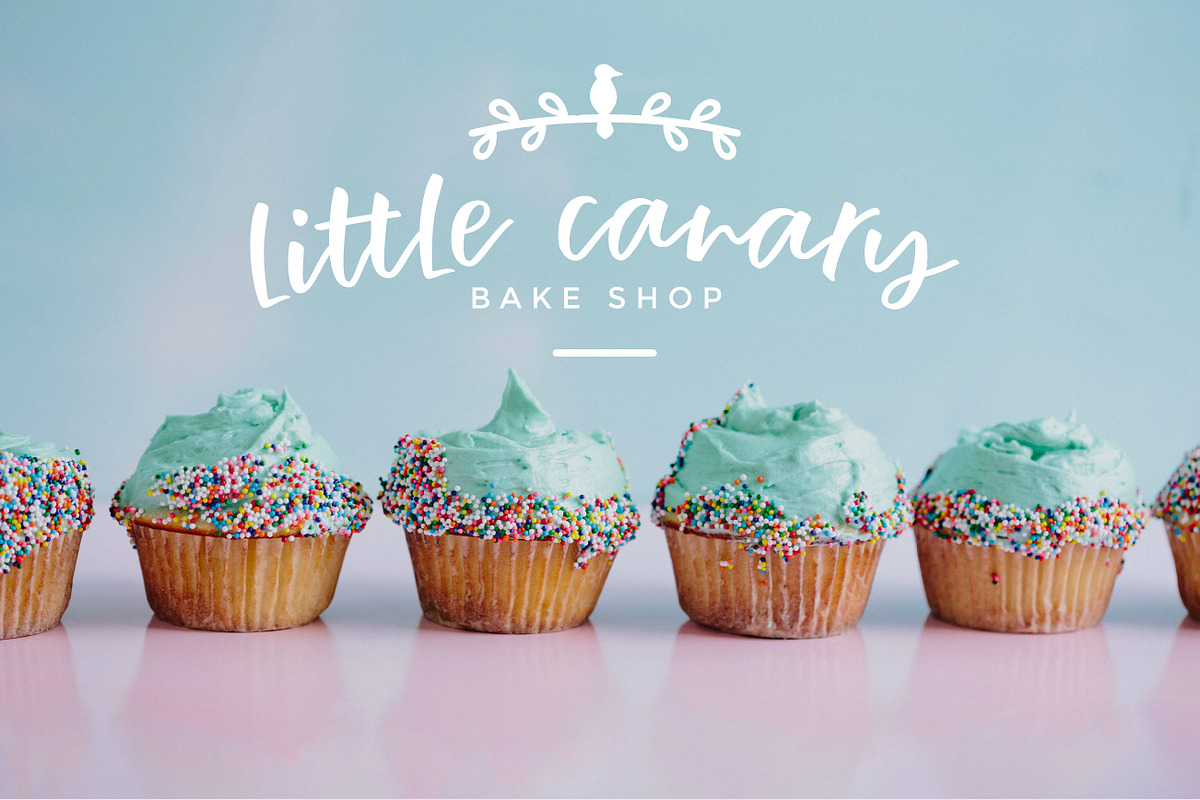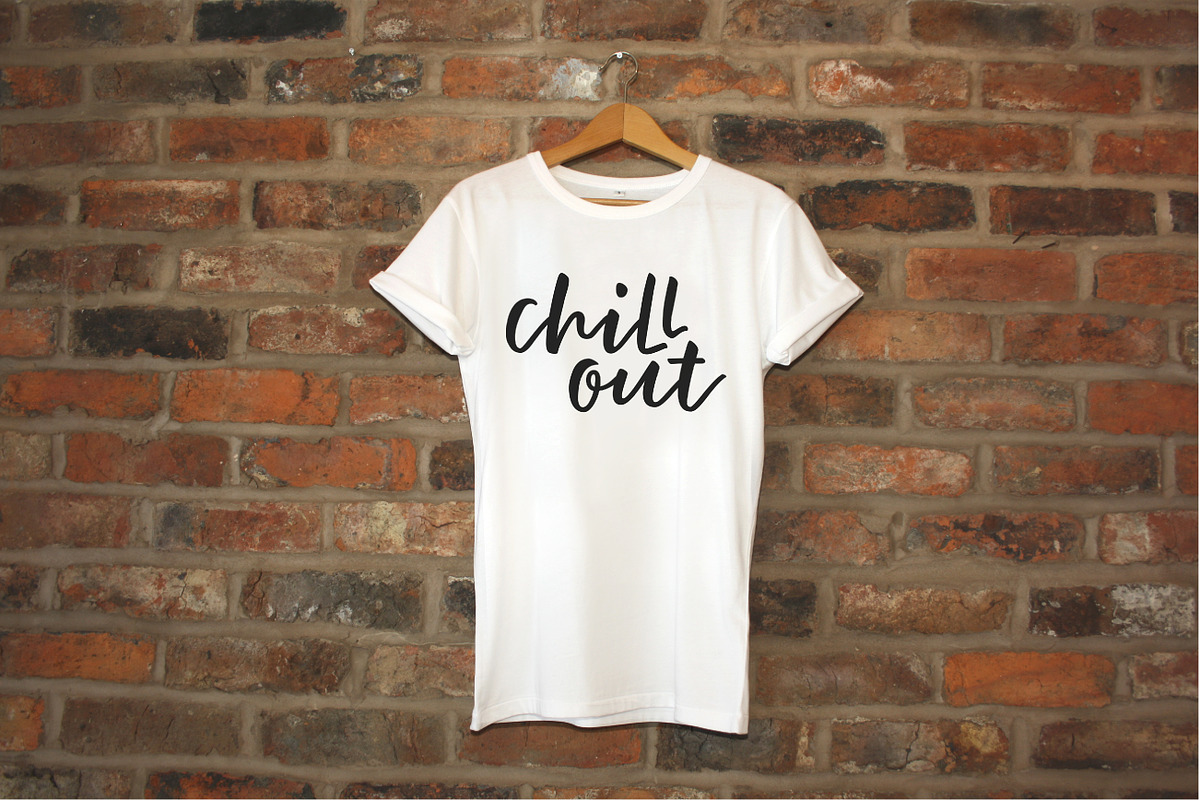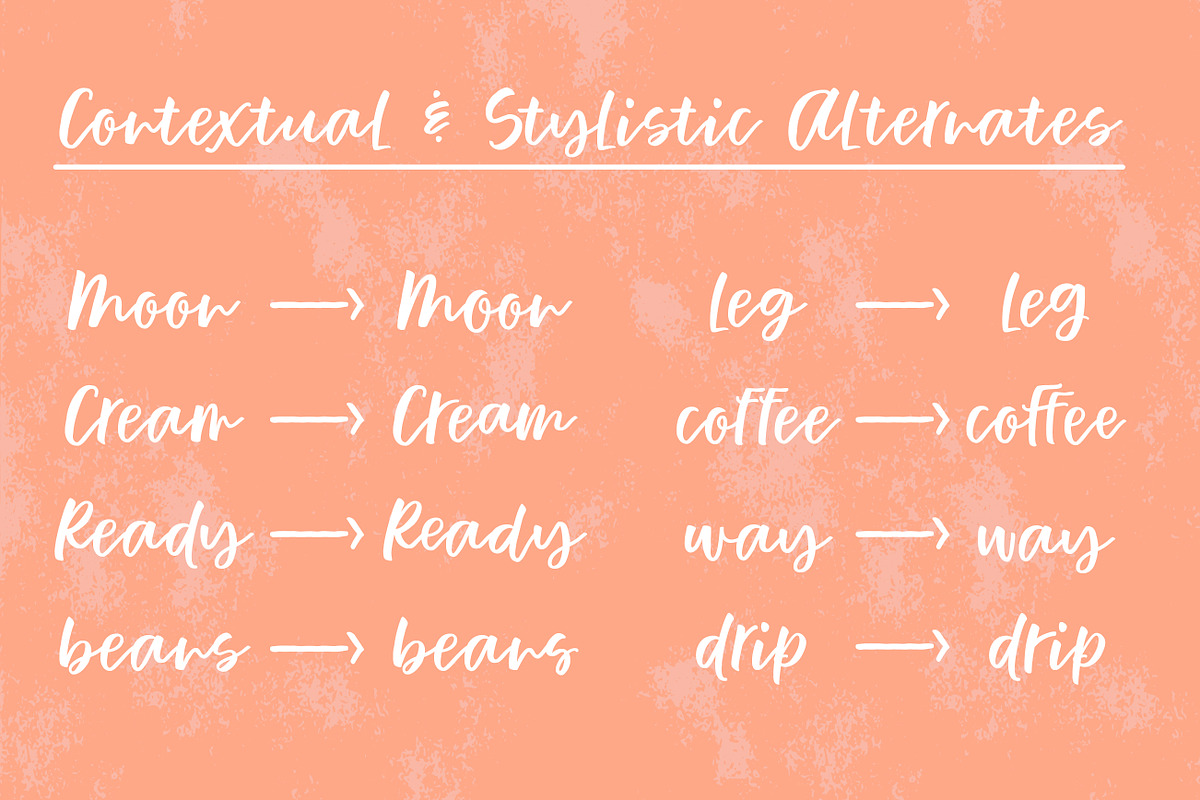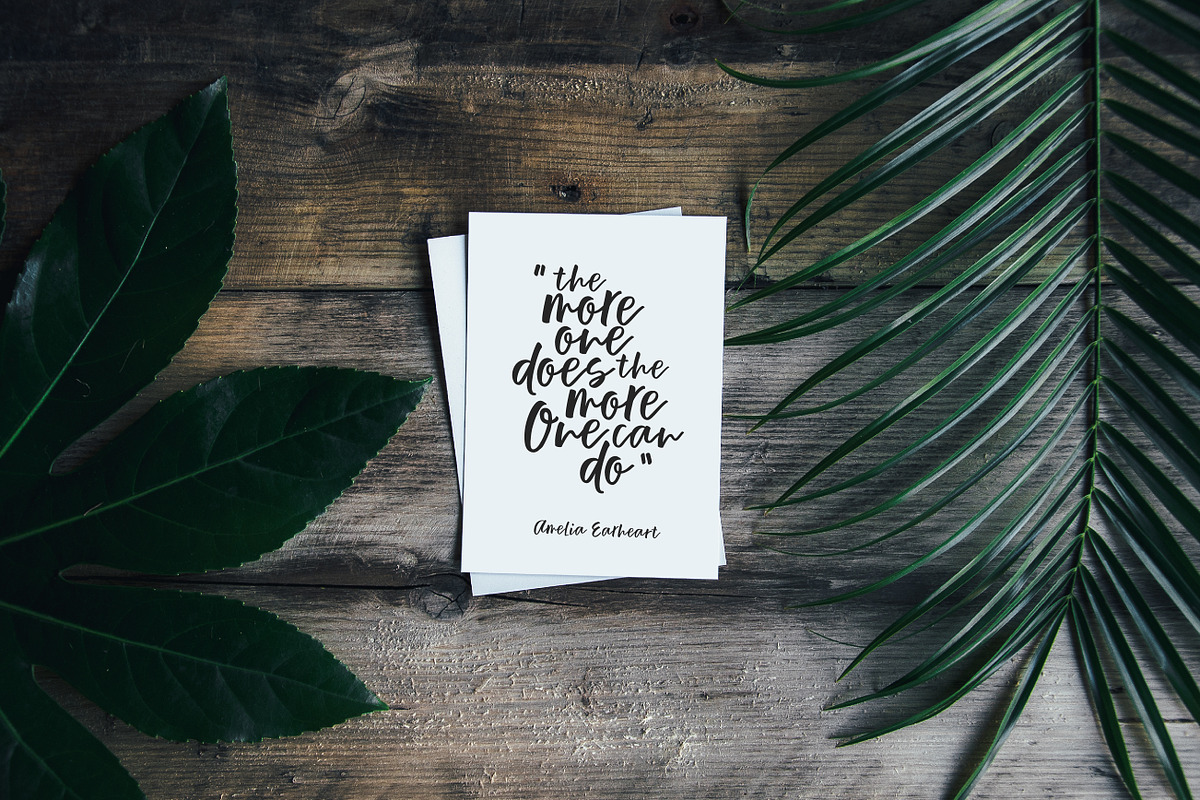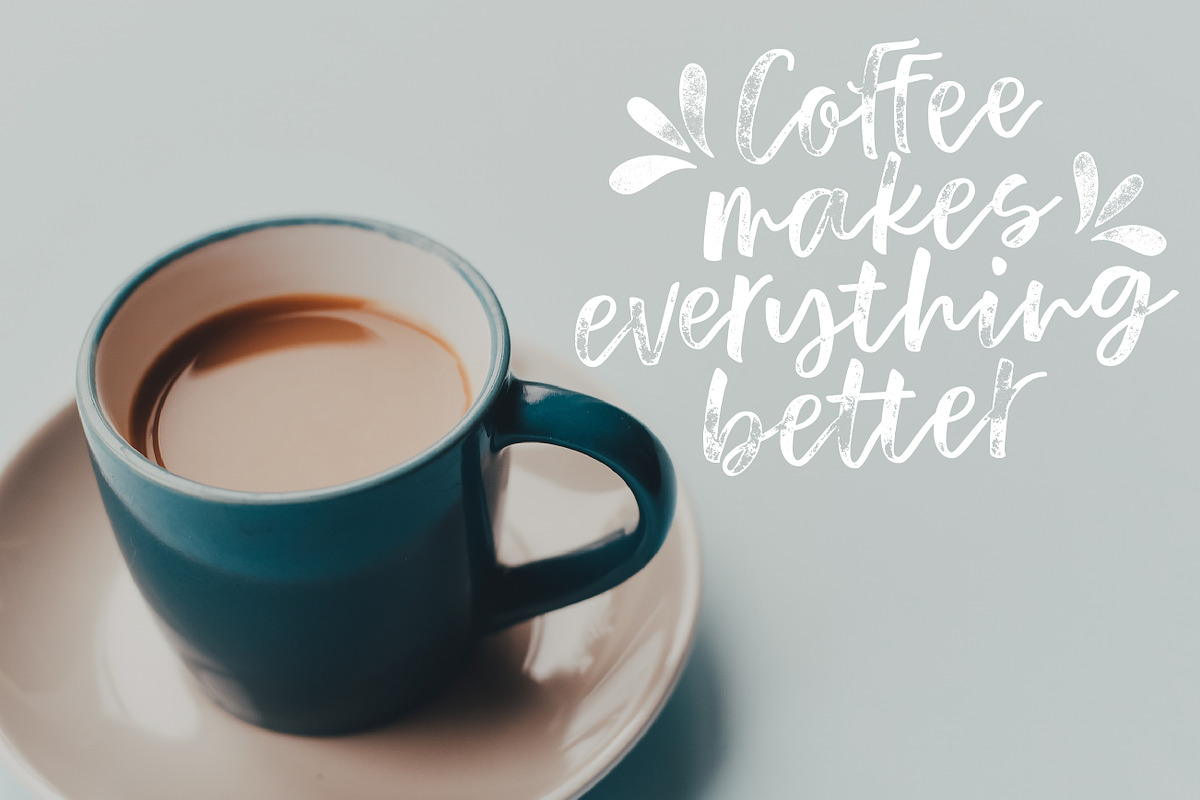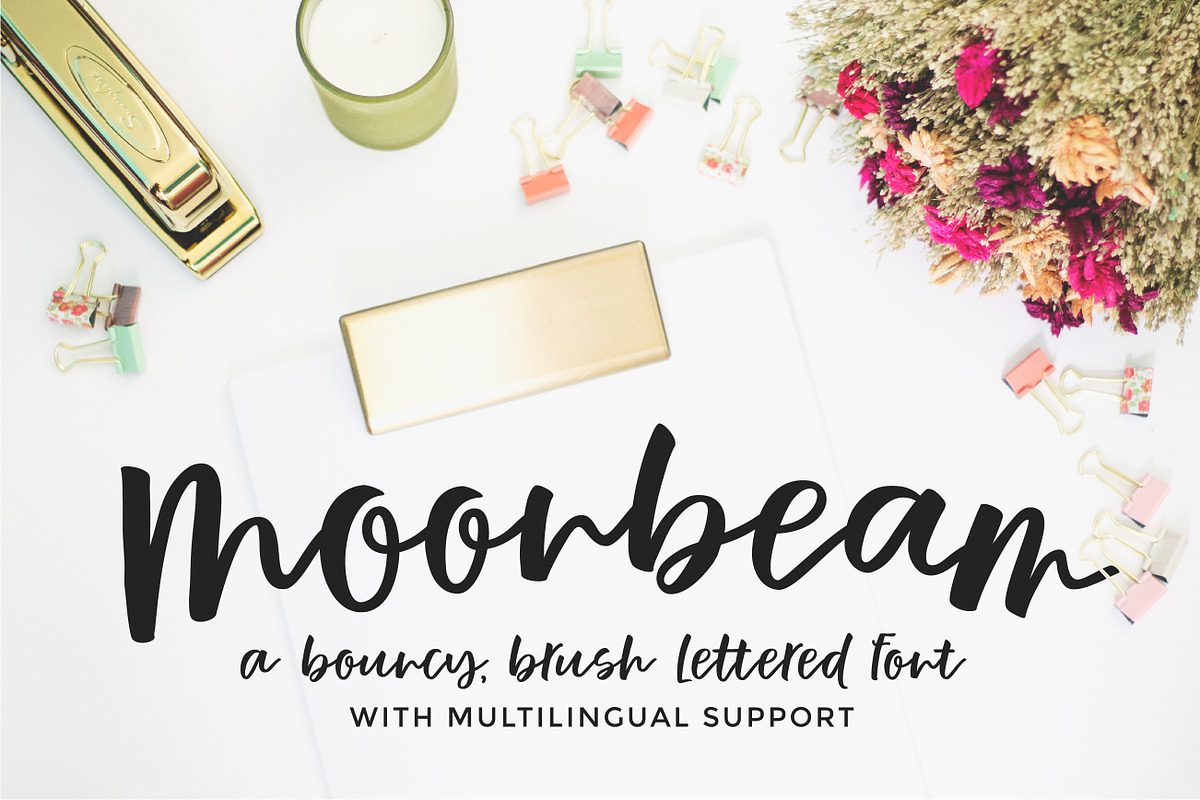
Moonbeam
Introducing Moonbeam! A fun and bouncy brush-lettered font with lots of character. Created from one of my go-to brush lettering styles, Moonbeam works great for use in branding projects, invitations, greeting cards, or even as a quote or saying to hang in your home.
This font includes multilingual support. Ligatures are included for double letter combinations and several other lowercase combos. A few lowercase alternates are included as well.